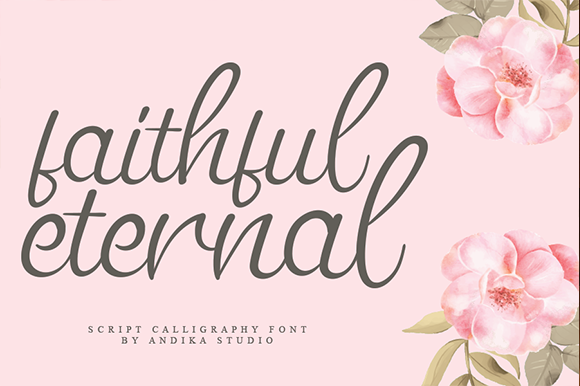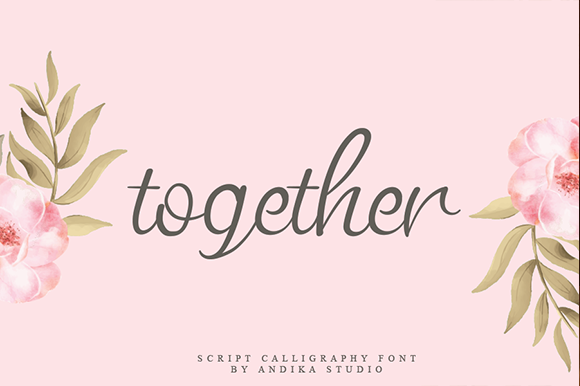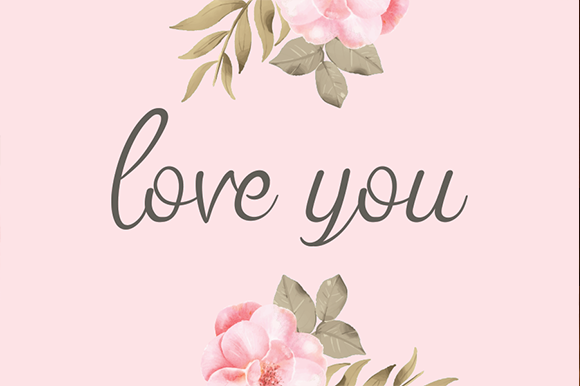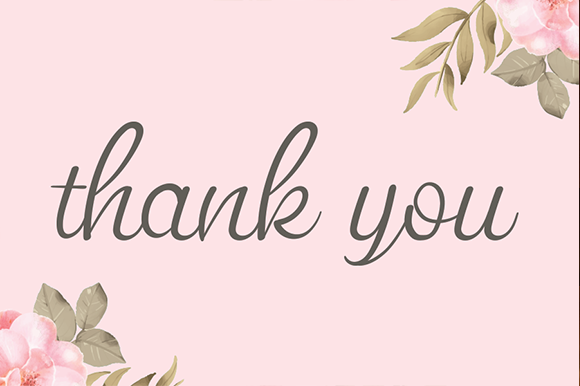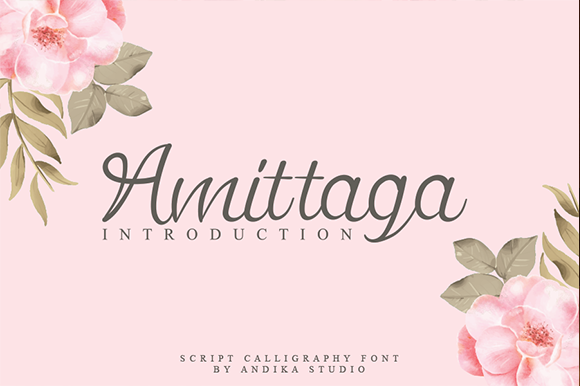
The Elegance of Amittaga Font: A Designer’s Delight
I still remember the design project that led me to discover the Amittaga font. I was working on a branding project for a luxury boutique hotel, and I needed a font that exuded elegance and sophistication. After hours of scouring through font libraries, I stumbled upon Amittaga, and it was love at first sight! ✨ The fluid strokes, the refined letterforms, and the effortless elegance – it was exactly what I needed to elevate my design.
An Honest Review of Amittaga Font
• ✨ Elegant and refined: Amittaga’s calligraphic influences give it a sophisticated feel that’s perfect for high-end branding and designs.
• ✅ Versatile: This font seamlessly transitions from formal to casual, making it suitable for a wide range of design projects, from letterheads to social media graphics.
• 💫 Contemporary and fresh: Amittaga’s modern twist ensures it doesn’t feel outdated or overused, giving your designs a unique edge.
While Amittaga is an exceptional font, there are a few minor considerations to keep in mind: 🤔
• ⚠️ Limited use in body text: Due to its elegant and cursive nature, Amittaga might not be the best choice for lengthy body text. It’s better suited for headings, titles, and short paragraphs.
• ⚠️ Some letter combinations: As with any font, certain letter combinations might not flow as smoothly as others. Be sure to test the font with your specific text to ensure the desired effect.
The Designer Inspiration Behind Amittaga
While the true story behind Amittaga’s creation is unknown, it’s easy to imagine that the designer was inspired by the world of luxury and elegance. Perhaps they drew inspiration from calligraphy classes or a passion for fine art. Whatever the inspiration, Amittaga is a testament to the power of elegant design.
Q: Is Amittaga suitable for body text?
While Amittaga is an elegant font, it’s better suited for headings, titles, and short paragraphs. For longer body text, you may want to consider a more legible font.